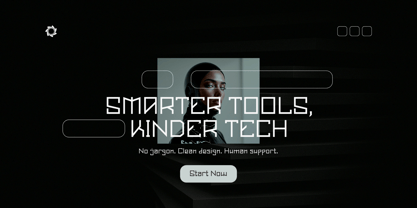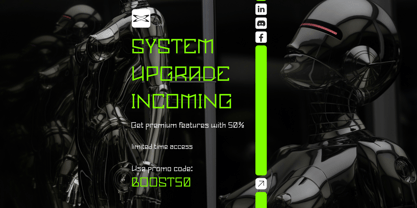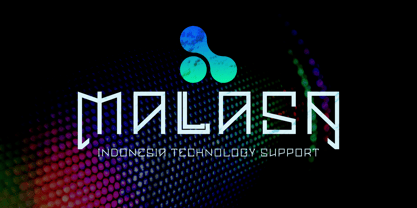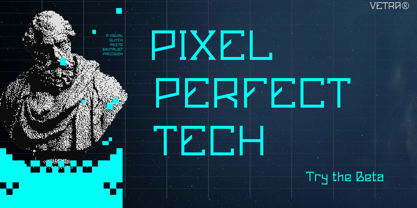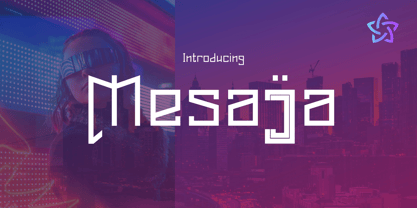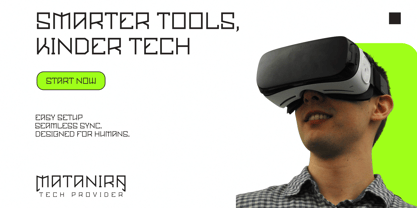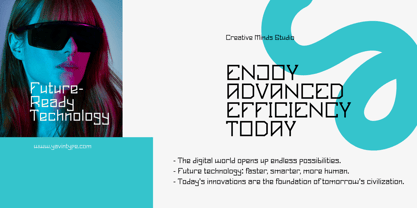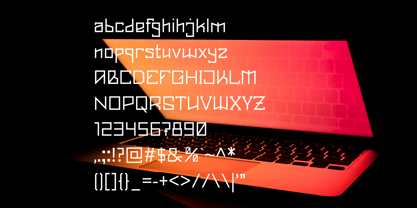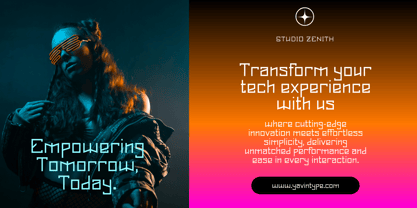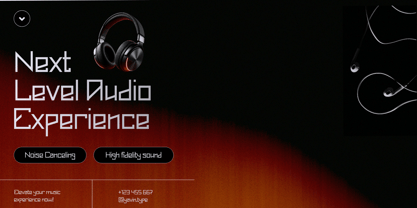
Mesajja
The Mesajja Font Family was designed by Amir Amir and published by Yavin Type. Mesajja contains 1 styles. More about this family
Mesajja is a geometric display font crafted by Yavin Type Studio, presenting a modern and futuristic look. Designed with over 200 glyphs, Mesajja offers versatility for various creative needs, from logos and headlines to branding projects that require a strong and unique identity. Equipped with ligature and alternate features, Mesajja enables greater creativity and style variation. With precise metrical kerning, every character is balanced and harmonious in any design application. Mesajja supports multilingual usage, making it suitable for global languages and projects. The combination of geometric shapes, sharp lines, and modern features makes Mesajja the perfect choice for designs aiming for an innovative and professional appearance. Key Features: - Glyph Count: 200+ - Ligature & Alternates: Enhance creative possibilities - Metrical Kerning: Optimal character spacing - Multilingual Support: Covers various languages - Geometric Design: Ideal for branding, logos, headlines, and posters Explore Mesajja from Yavin Type Studio and give your design projects a modern edge!